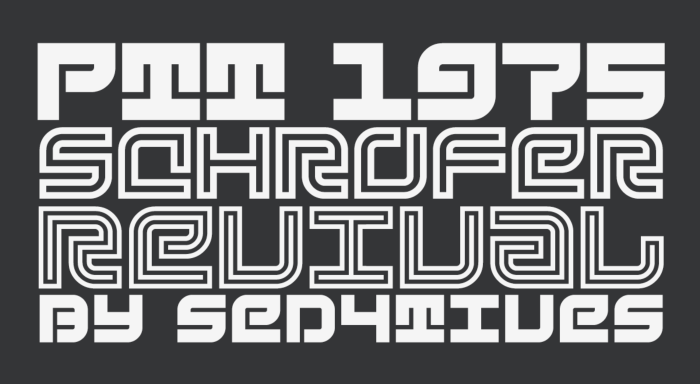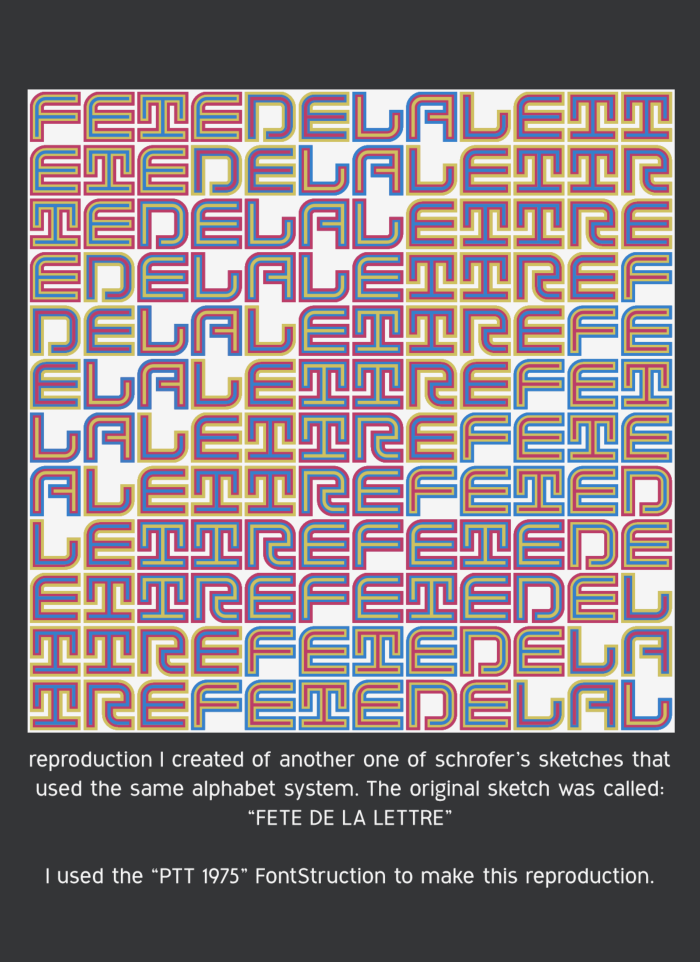
• JS-PTT 1975 (INLINE) ― Geometric modular typeface system
Another font addition to the ever evolving and growing collection of revivals and inspired works called LETTERS OP MAAT, a project celebrating and trying to recreate the typographic contributions originally designed by Dutch graphic designer Jurriaan Schrofer. This time I did sort of a revision / recap based on Schrofer's 1975 trichromatic sketches he did for the PTT (TD) the technical department of the Dutch State Company of Post, Telegraphy and Telephony (PTT)  that featured a style variation to one of his alphabet systems.
JS-PTT 1975 is a typeface family of three font styles called (SOLID), (INLINE) and (OUTLINE), that seemlessly overlap for combined multi-layer capabilities. Allowing easy multicolor replication similar to the original sketches and more, but also to provide three different isolated forms for individual use as separate fonts.
Now, without diving too deep into the man's biographic profile I do want to point out the following; ―Despite the unprecedented amount his typographic brilliance has contributed, he remains relatively unknown, but certainly no stranger among real typ-o-philes. Schrofer was light years ahead of its time. The level of crafmenship he put into his work was often overshadowed by his mind-blowing experimental, at times even bizarre and psychedelic typographic approach on letterforms, and can easily make one not truly realize the amount of expertise and skill often on display. Therefor he probably remains best known for his extravagant endeavours in book design.
Between 1973-1979 Schrofer worked on a assignement for the Dutch client called PTT (TD) this was during his time with Total Design. For the PTT (TD) Schrofer worked on a big multi project assignement he himself cataloged "Bewegwijzering Girokantoren". This essentially was the design of multiple visual identities for floorplans of 3 office buildings owned by the company. The project gave birth to several new style variation for several of his alphabet systems, one of those was this variation that introduced the rounded corners to some of the letterforms.
This particular recap was based on a alphabet system seen in numerous of sketches Schrofer designed in 1975 for the Dutch ministry of welfare, public health and culture (WVC) department for aesthetic design with the PTT. Part of the technical service at the PTT, responsible for the visual logistics of the company. The PTT, at the time a state-owned multi-utility company providing countless services. All the letters originally provided in Schrofer's sketches are included, I designed all the missing letters plus a couple of alernatives following the original's design parameters. In addition to that I designed and included numerals and some symbols and punctuation marks as well.
During my studies of Schrofer's work I noticed that various alphabet systems reappeared in many of his works. Further research showed that throughout his carreer he seemed to have developed and pre-fabricated multiple alphabet systems, variations and concepts that he constantly reused, refurbished, and recycled over the course of his carreer. Therefor it can be difficult to pin point the exact origins for some of his lettering concepts. Which is something I learned along the way and did not really anticipated for when I innitially started this LETTERS OP MAAT project, so some of my ealier fonts for this project haven't exactly all been properly researched.
For example the lettering concept seen in one of his designs for the PTT (TD) had already appeared two years prior of this PTT materials, when it was used in the 1973 brochure called Grafiek Per Postbode for Galerie 33. This brochure shows the same alphabet system that he later reuses for one of the PTT office builing floorplan designs. The brochure features an outlined variation of that same alphabet system for the text Heading, and a rounded mono-linear variation to this same alphabet system for the Subheading. This mono-linear variation itself had been used in the work for The Beurs van Berlage (Foundation) as well [IMAGE], the Beurs Van Berlage is a Dutch commodity market building located in the centre of Amsterdam. The alphabet system later then got digitalized for implimentation in the Dutch passport, and was acompanied by several additional derivative styles to this mono-linear version of (you can probably guess it) that same alphabet system, including a 5x7 Dot Matrix. Schrofer's design concept for the Dutch passport eventually never got used. And there were several other reapearances of the alphabet with several clients throughout his carreer.